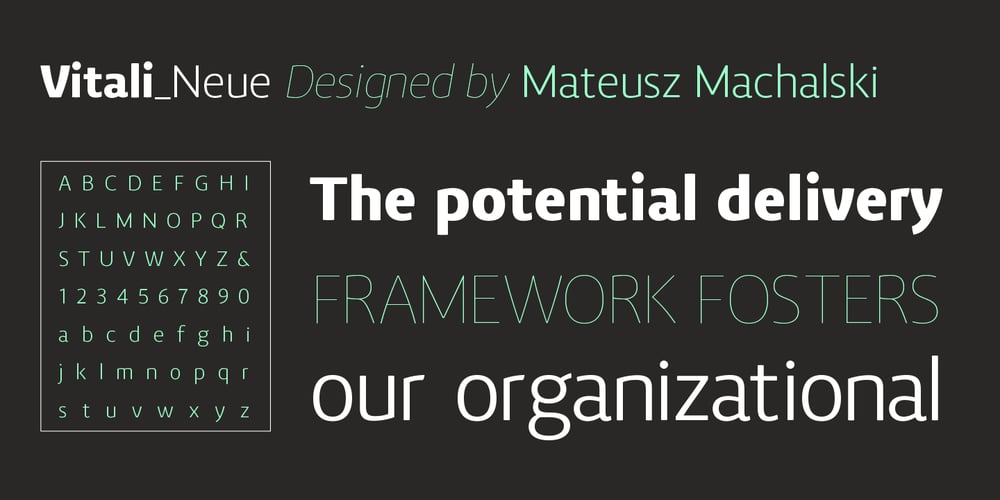
Vitali Neue Font Family was designed by Mateusz Machalski and published by Machalski. Vitali Neue contains 20 styles and family package options. Vitali Neue is geometric sans serif typeface family with a friendly feel. The low contrast and high x height is perfect for headlines and display uses.